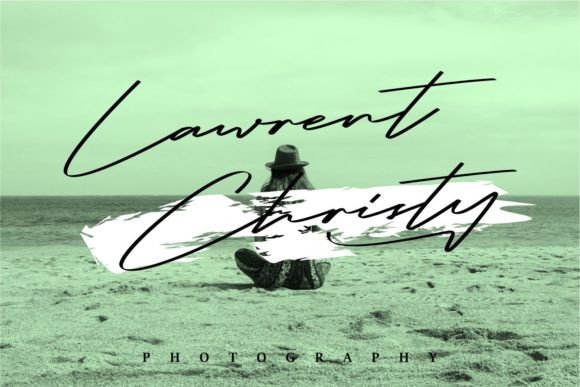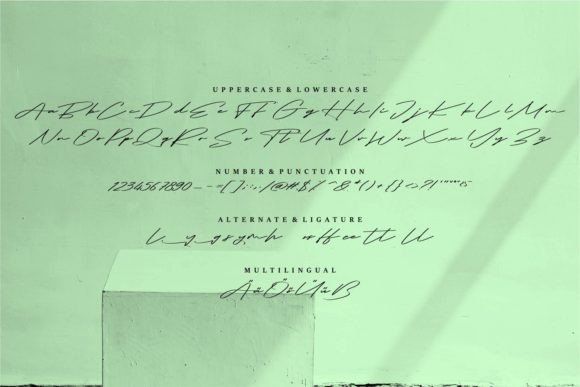
Introduction to Menaky Font Font
Fonts play a crucial role in design, and the Menaky Font font is a typeface that brings both character and versatility to any project. Whether you’re working on a branding project, a website, or a print design, the Menaky Font font offers a unique style that can elevate your work.
Experience the height of elegance with our stylish and refined script font.
Menakyβs graceful and flowing letterforms exude sophistication and class, while its contemporary design brings it firmly into the modern age Perfect for high-end branding, wedding invitations, and any project that calls for a touch of luxury and refinement.
Key Features of Menaky Font Font
Why Choose Menaky Font Font?
The Menaky Font font is more than just a typeface β it’s a design tool that helps you communicate your message with style and clarity. Its unique character set and versatile design make it suitable for a wide range of applications, from elegant invitations to bold headlines.
With its carefully crafted letterforms and balanced proportions, the Menaky Font font ensures readability and visual appeal across all mediums.
What makes Menaky Font font special?
The Menaky Font font stands out with its unique design, exceptional readability, and versatility across various design applications.